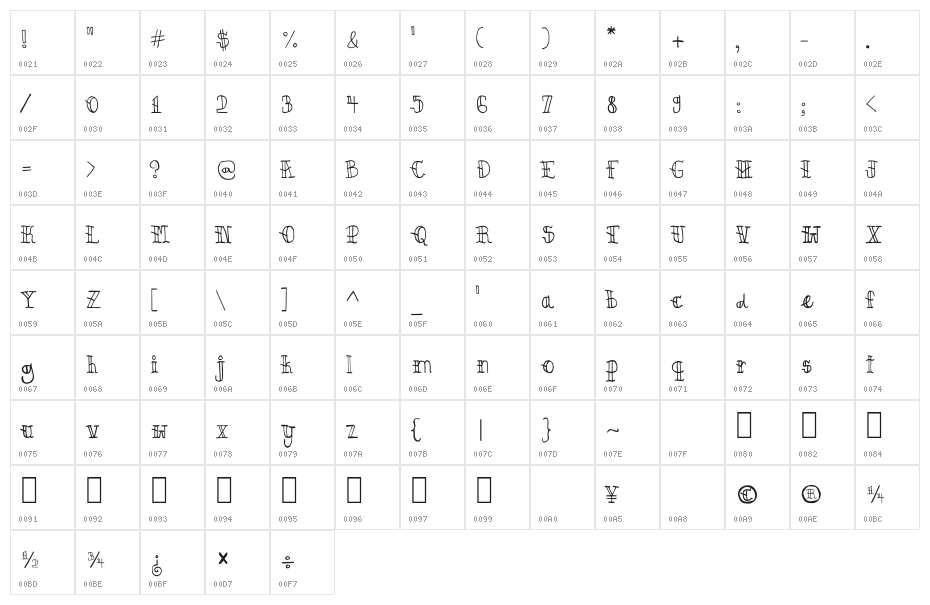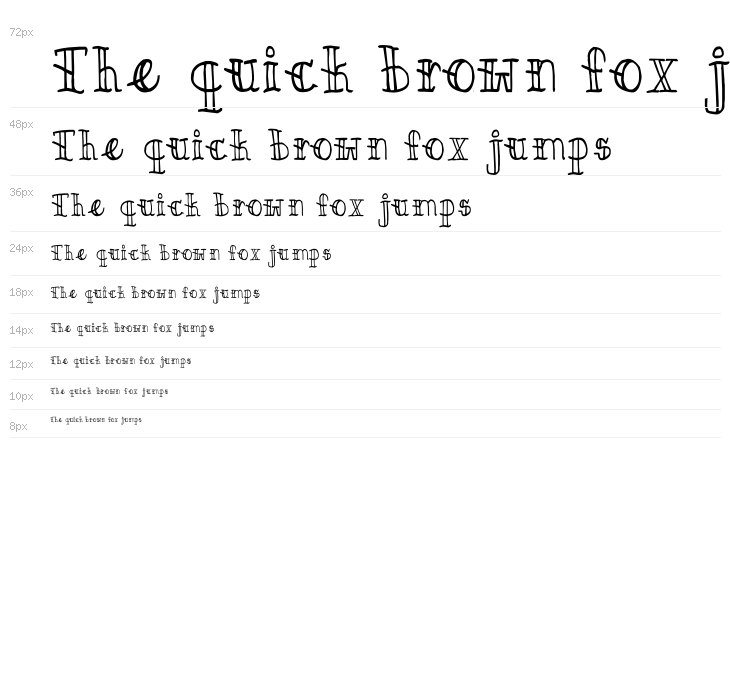
CRU-kiettipoom Font
CRU-kiettipoom Description
This font features a whimsical and playful design with a hand-drawn aesthetic. The characters are uniquely crafted with a combination of straight lines and curves, giving them a quirky and artistic appearance. The uppercase letters are bold and prominent, while the lowercase letters maintain a consistent style with slight variations in stroke width. Numbers and special characters follow the same playful theme, making the font versatile for creative projects. The overall look is reminiscent of a decorative script, suitable for adding a touch of personality to any design.